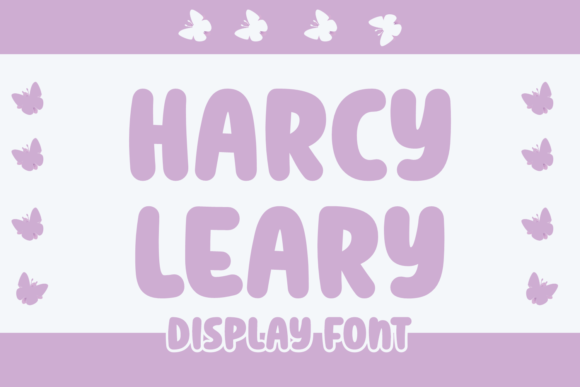
Introducing Harcy Leary, the display font that embodies boldness and confidence. Its captivating letterforms and thick, prominent strokes demand attention, making it the perfect choice for creating powerful headlines, logos, and typographic designs that leave a lasting impression.
Unleash your creativity with Harcy Leary's distinctive style. From book covers that exude sophistication to posters that radiate vibrancy, this font becomes an integral part of your artistic expression. Its versatility extends to branding projects, where its striking presence elevates your designs to new heights.
With Harcy Leary, your words take center stage. Its carefully crafted characters possess a unique charm that captivates audiences, leaving them engrossed in your message. Whether it's a captivating website banner or an alluring social media post, Harcy Leary ensures your content shines.
Join the ranks of design enthusiasts who have embraced Harcy Leary's magnetic aura. As a creation of the renowned KristoperRansz, this font is a testament to artistic excellence, attracting praise from designers worldwide. Its inclusion in the "Best Fonts for Book Design" collection is a testament to its exceptional quality and suitability for captivating projects.